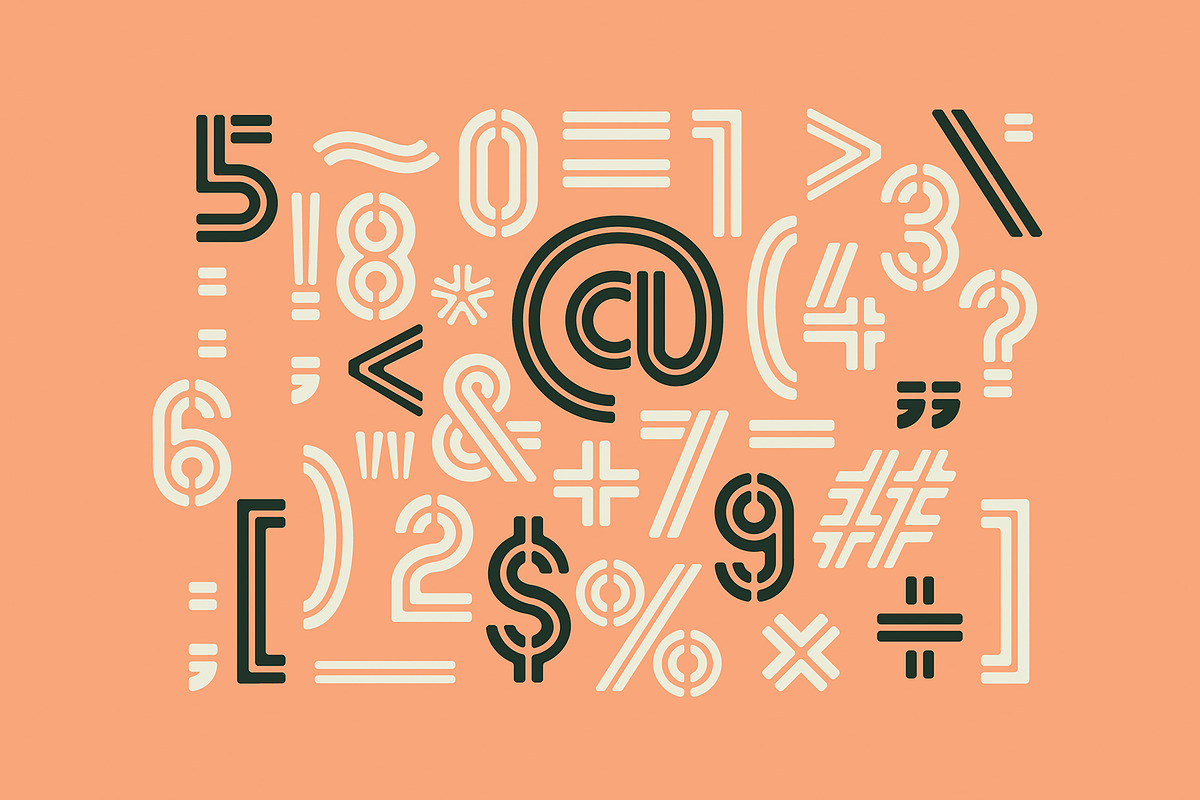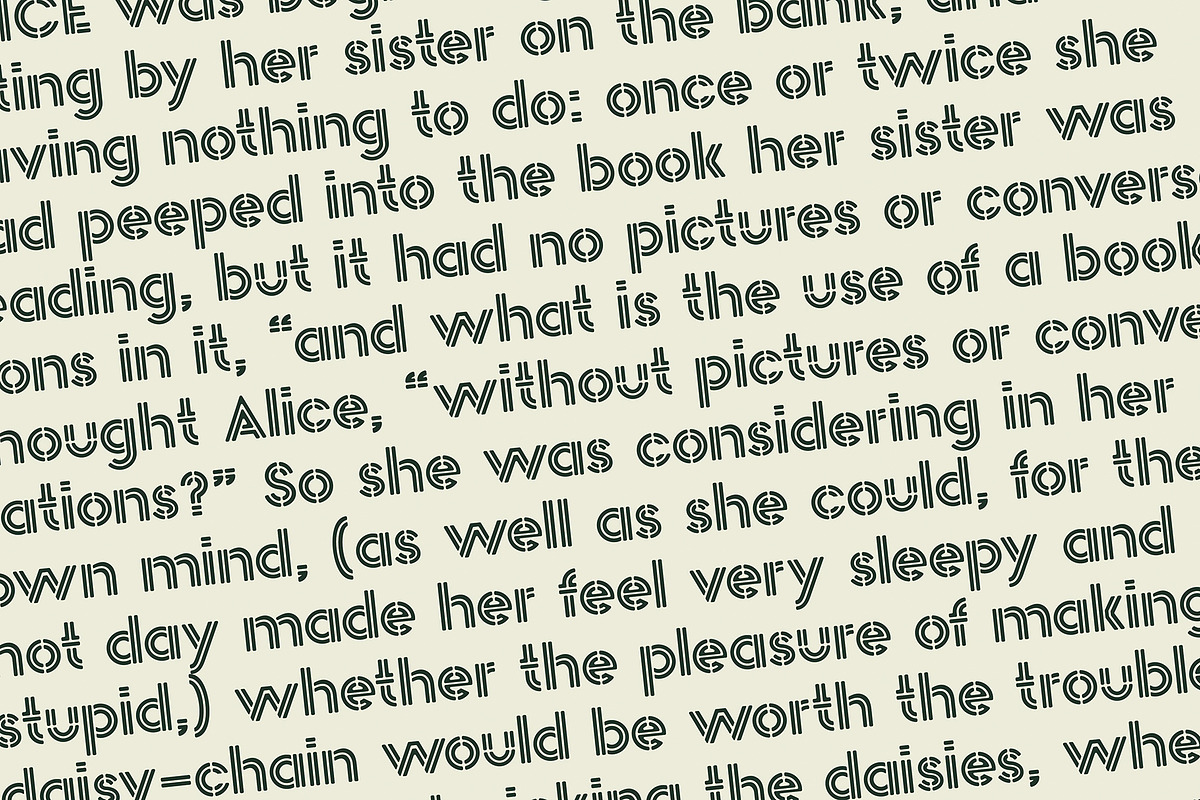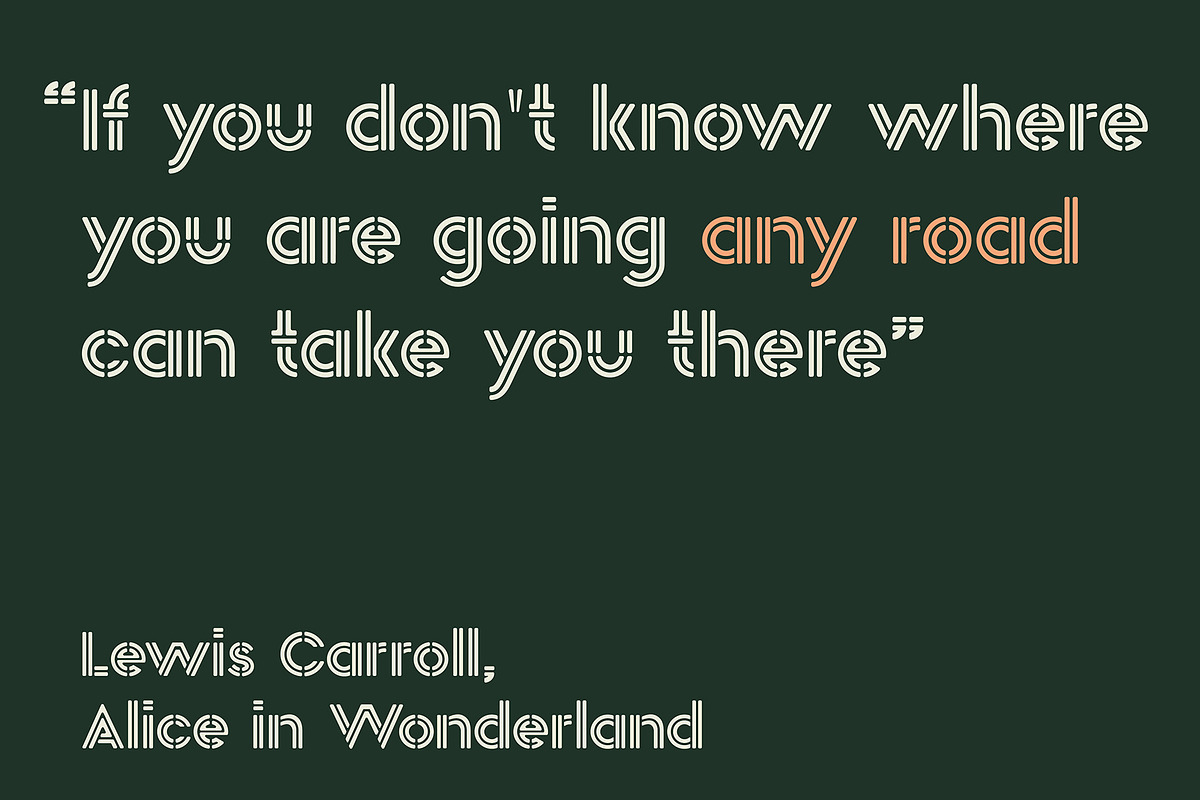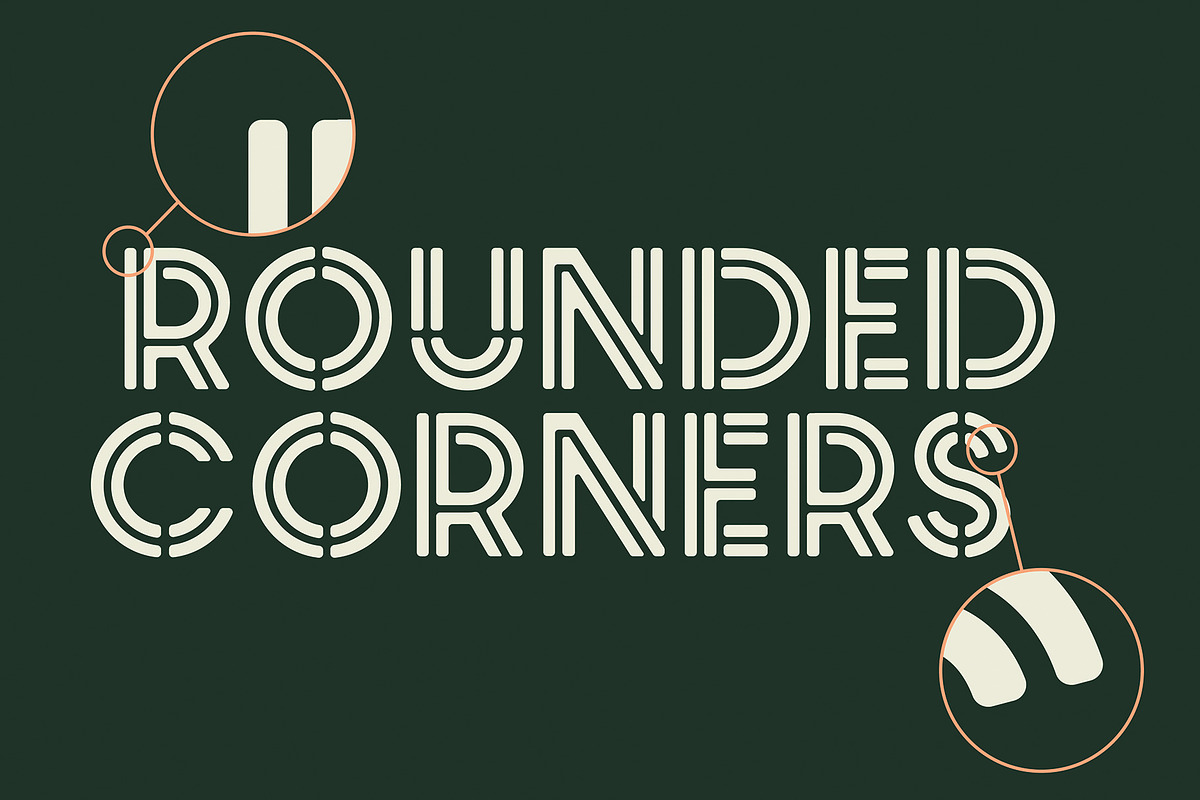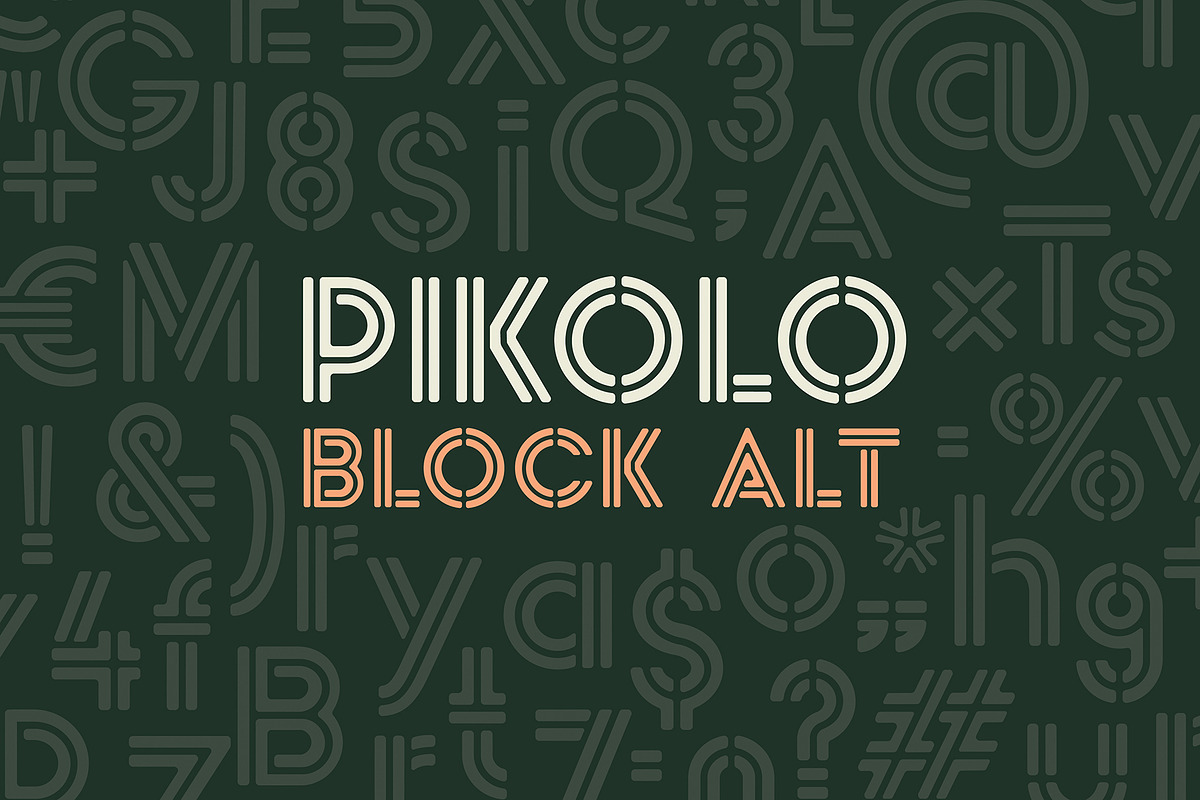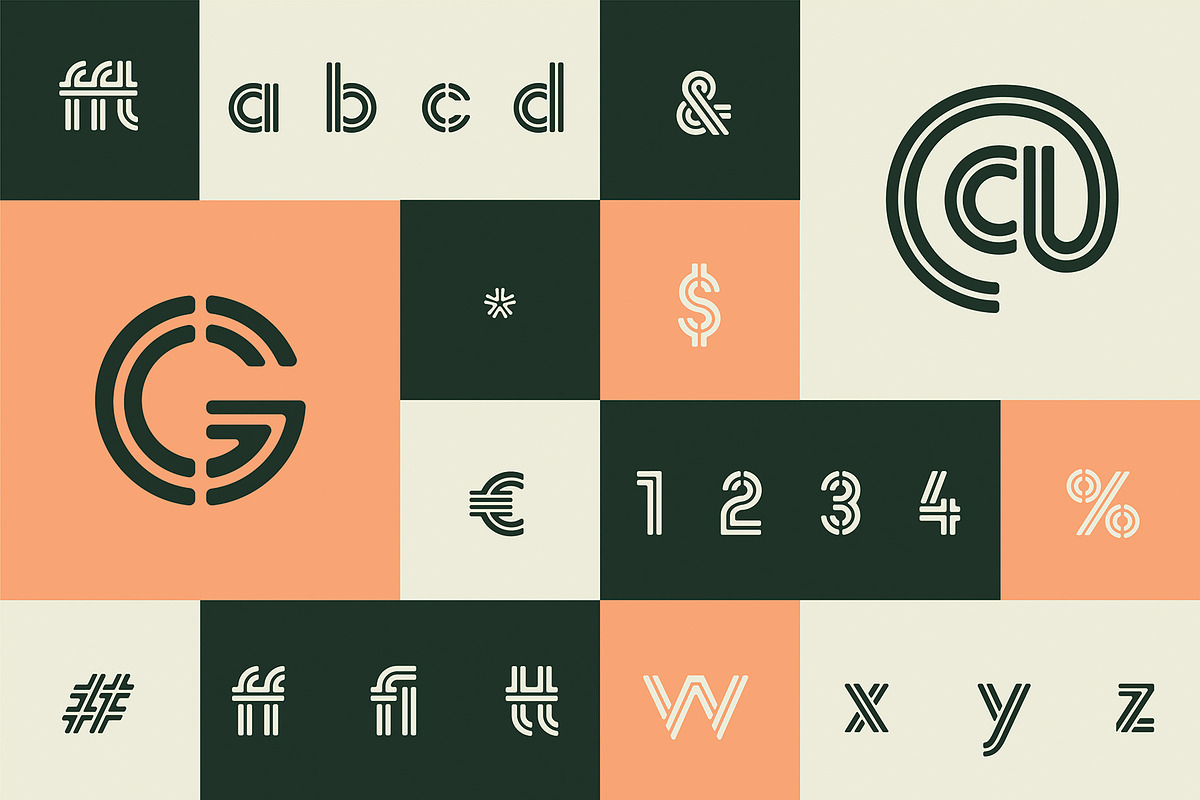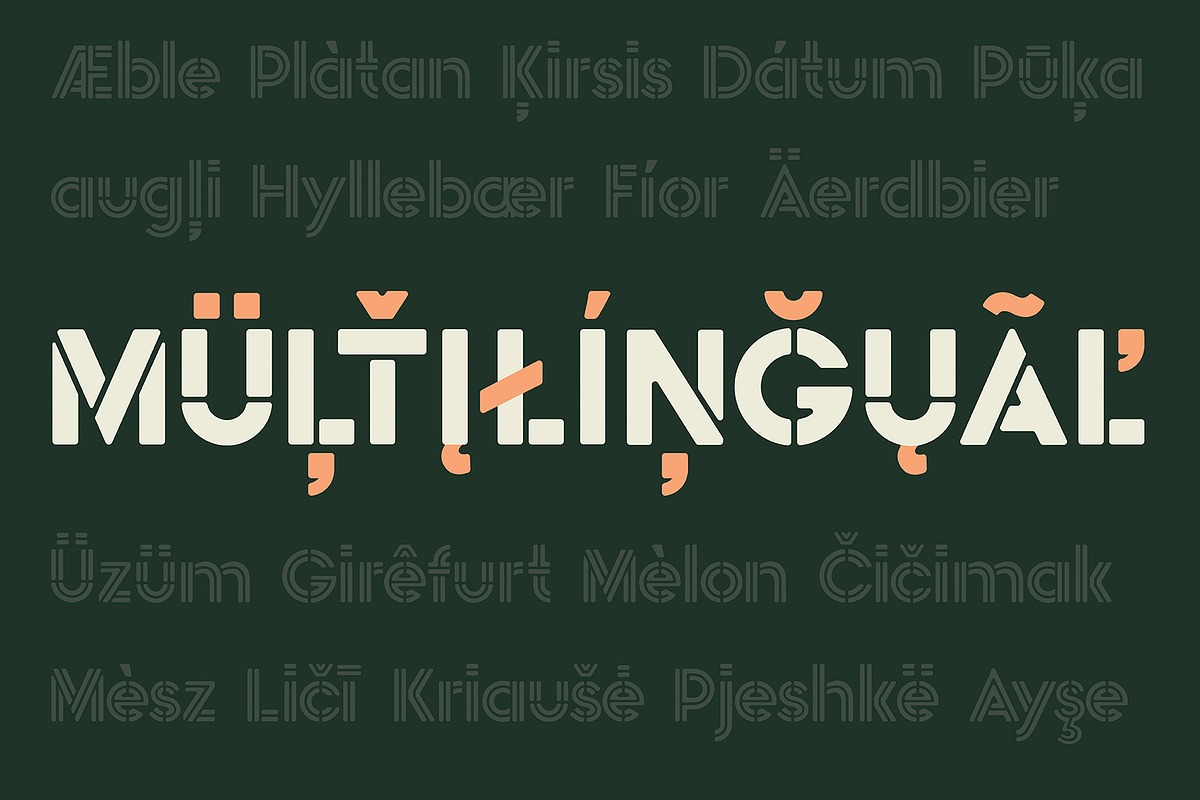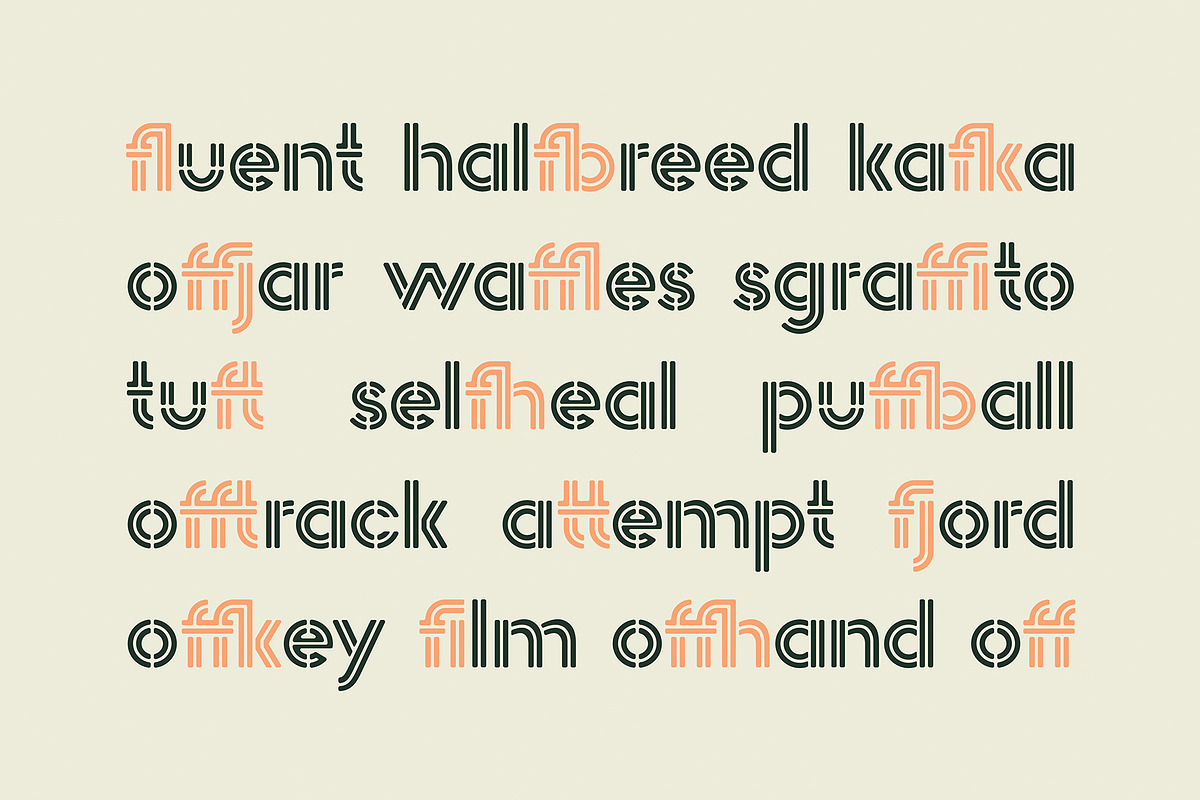
Pikolo Block Alt Font
Pikolo Block Alt is the third of the Pikolo font family inspired by vintage woodblock printing.
Pikolo Block Alt is a slightly rounded display typeface. The letters are made of separate blocks. It is a playful font, perfect for headings, logos and so much more! The font comes with full upper & lower case characters, numbers, symbols and includes the most common stylistic ligatures.
Updated for multilingual support, languages include: Dutch, Danish, Norwegian, Finish, Swedish, Icelandic, Estonian, Latvian, Lithuanian, German, Hungarian, French, Portuguese, Spanish, Italian, Bosnian, Croatian, Czech, Slovak.